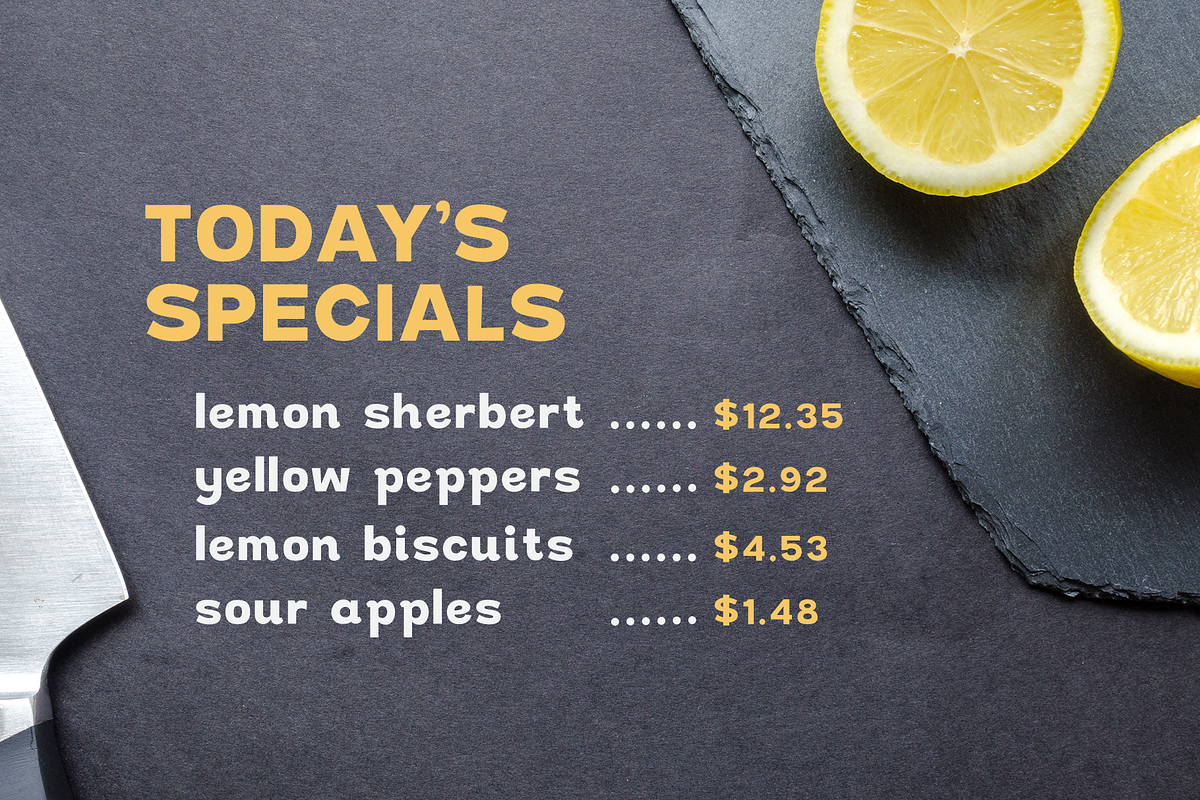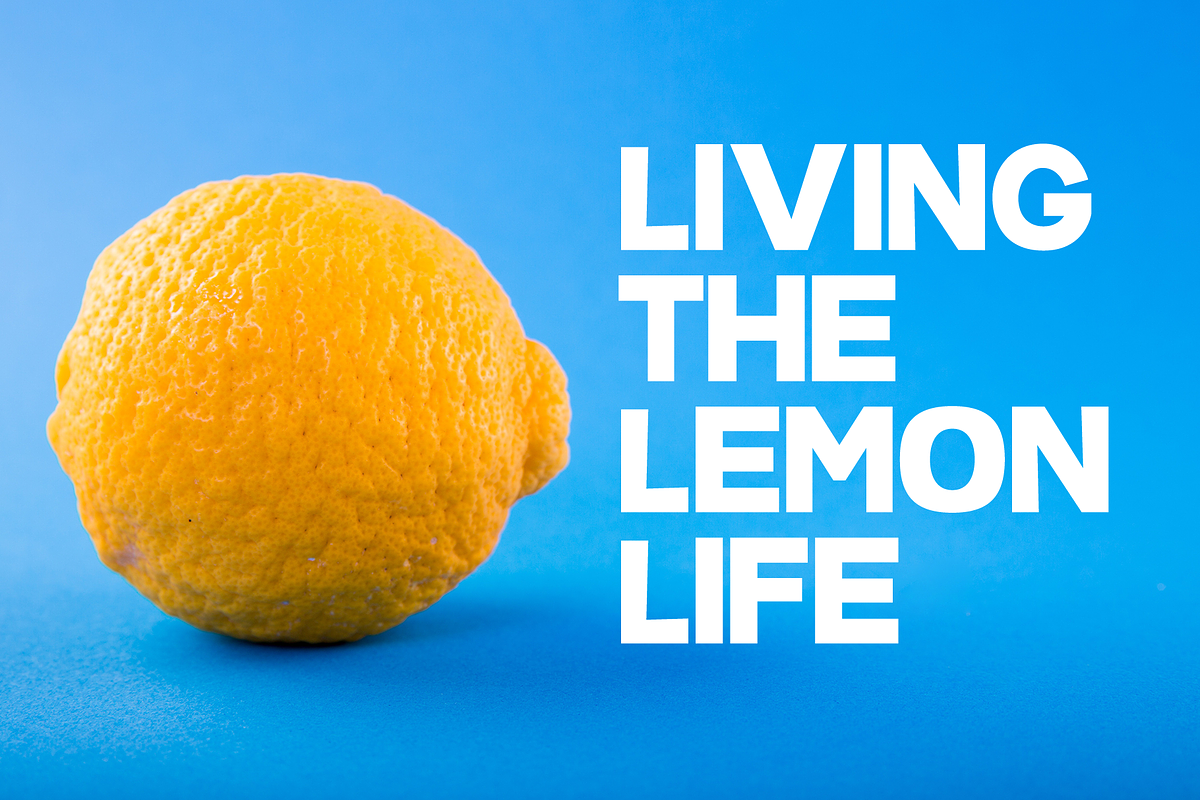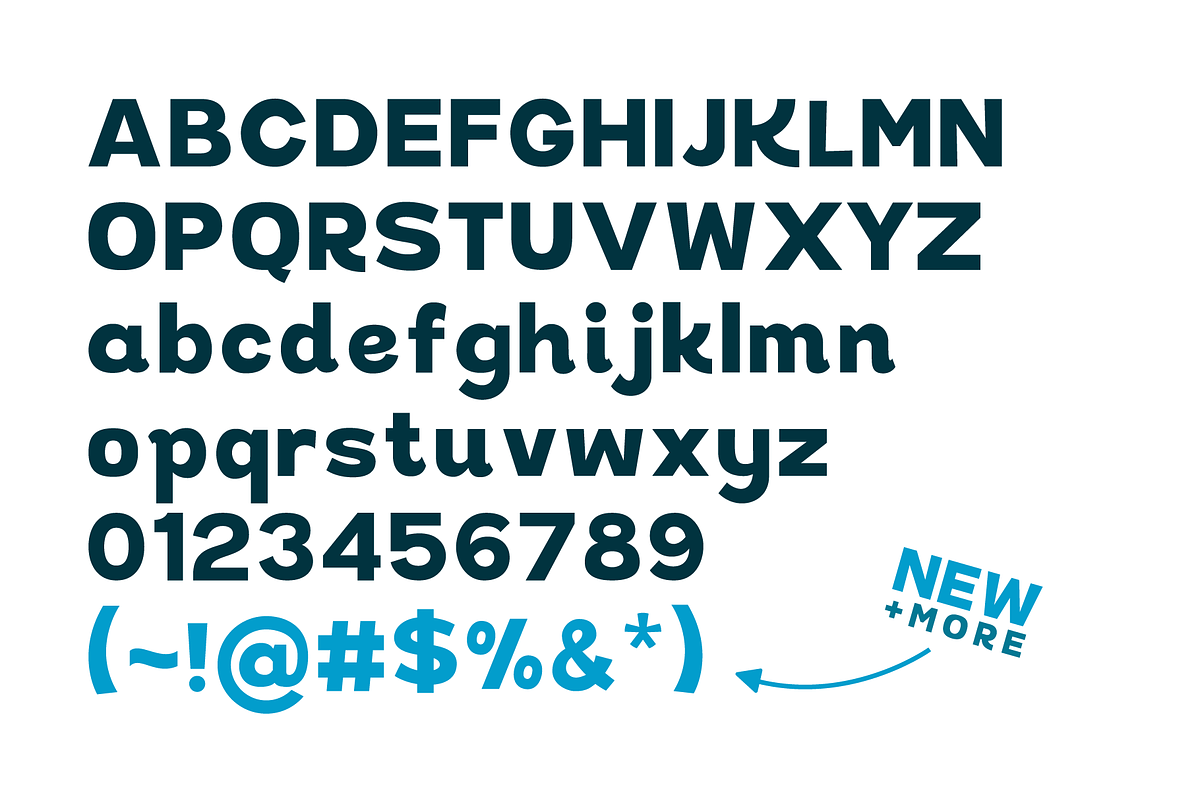
Lemon Butter Display Font
Lemon Butter Display Font by True North Creative is a font selected for branding, posters, packaging, typography.
Why Lemon Butter Display Font is worth a look
Lemon Butter Display Font by True North Creative fits naturally into Branding, posters, packaging, typography.